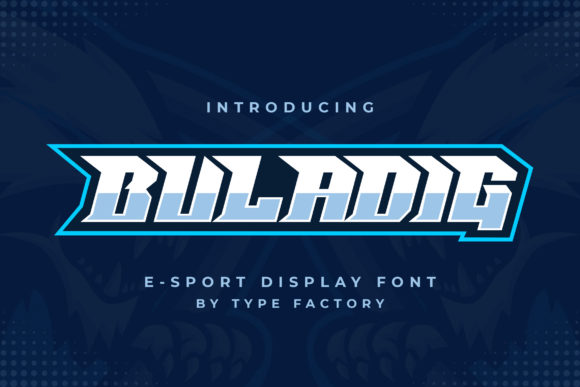
The Ultimate Gaming Font: A Deep Dive into Buladig Font
I’ll never forget the moment I was working on a game tournament advertising project, and I just couldn’t find the right font. My client wanted something bold, modern, and eye-catching, but everything I tried seemed to fall flat. That’s when I stumbled upon Buladig Font, and it changed the game (pun intended)! In this article, I’ll share my experience with this amazing e-sport display font, its features, and how to make the most of it in your designs.
A Personal Review of Buladig Font
- ✨ Bold and modern design: Buladig Font is perfect for making a statement in your gaming designs.
- ✅ Highly versatile: It can be used for logos, game tournament advertising, album covers, and more.
- 🔥 Attention-grabbing: The font’s unique style is sure to grab attention and leave a lasting impression.
While Buladig Font is an amazing font, there are a few things to keep in mind:
- 🤔 Limited use in body text: Due to its bold design, Buladig Font may not be the best choice for large blocks of body text.
- ⚠️ Requires careful kerning: As with any bold font, kerning can be a bit tricky, so be sure to adjust as needed.
- Experiment with OpenType features like ligatures and stylistic alternates to add some extra flair to your design.
- Use stylistic alternates to create a unique look for your design.
The Designer Inspiration Behind Buladig Font
According to its creators, Buladig Font was inspired by the world of e-sports and gaming. The designers wanted to create a font that captured the energy, excitement, and modernity of the gaming industry. With its bold design and versatile features, Buladig Font is the perfect result.
Q: What is Buladig Font best used for?
A: Buladig Font is perfect for gaming designs, logos, tournament advertising, album covers, and more.